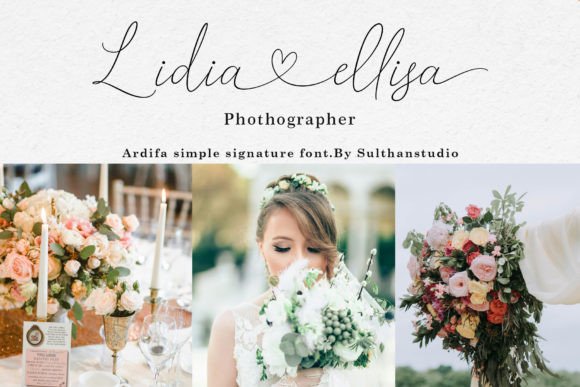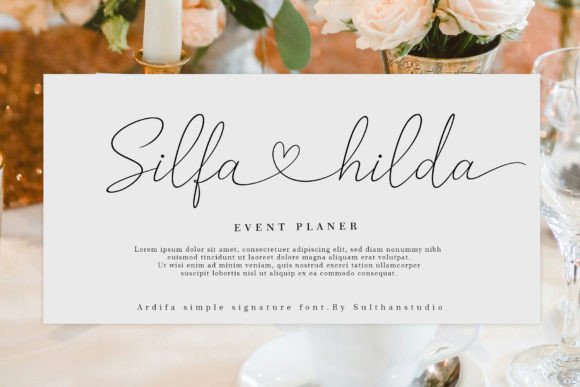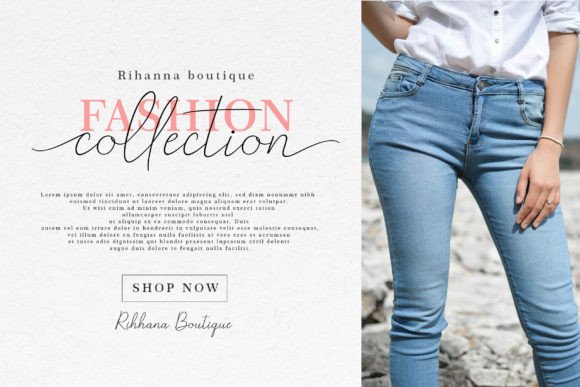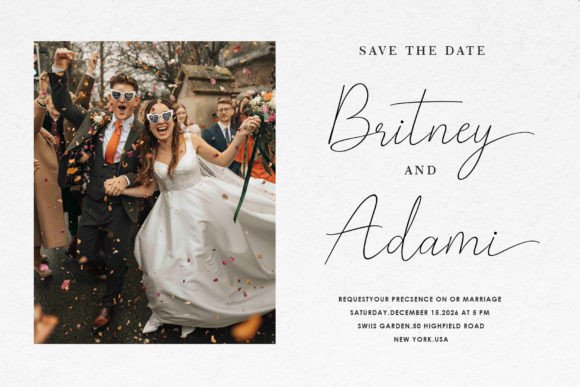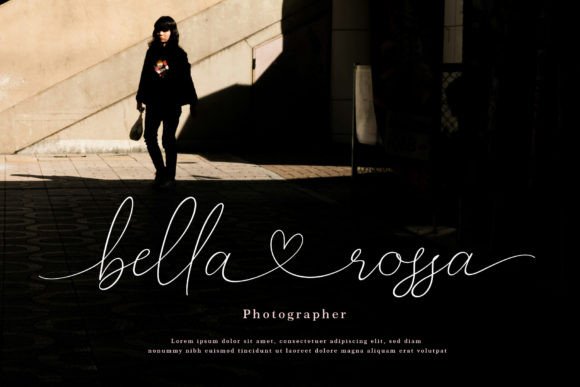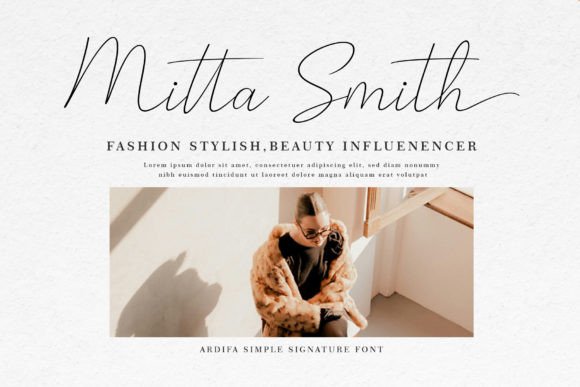
Introducing Ardifa Font: The Perfect Blend of Modernity and Elegance
In the world of typography, fonts play a crucial role in conveying the tone and personality of a brand or design. For designers and crafters, finding the right font can be a daunting task. However, if you’re looking for a simple yet elegant signature font that exudes a fresh, modern, and natural handwriting style, look no further than Ardifa Font.
What is Ardifa Font?
Ardifa is a beautifully crafted font that combines the simplicity of handwriting with the elegance of calligraphy. This stunning font features a unique and modern design that is both easy to read and visually appealing. With its natural handwriting style, Ardifa Font is perfect for adding a personal touch to various design projects.
Key Features of Ardifa Font
- Simple Signature Font: Ardifa Font boasts a simple yet stylish design that makes it perfect for signatures, logos, and branding.
- Fresh and Modern: The font’s modern design ensures that your designs look contemporary and trendy.
- Natural Handwriting Style: Ardifa Font’s handwriting style gives it a personal and human touch, making it ideal for designs that require a personal feel.
- Easy to Read: The font’s clear and legible design makes it easy to read, even at small sizes.
- Calligraphy-Inspired: Ardifa Font’s calligraphy-inspired letters add a touch of elegance and sophistication to your designs.
Uses of Ardifa Font
Ardifa Font is a versatile font that can be used in a variety of design projects, including:
- Branding: Create a lasting impression with Ardifa Font’s unique and stylish design.
- Logos: Design stunning logos that reflect your brand’s personality with Ardifa Font.
- Signatures: Add a personal touch to your signatures with Ardifa Font’s elegant design.
- Quotes: Create inspiring and visually appealing quotes with Ardifa Font.
- Social Media: Elevate your social media designs with Ardifa Font’s modern and fresh design.
Why Choose Ardifa Font?
With so many fonts available, why choose Ardifa Font? Here are a few reasons:
- Unique Design: Ardifa Font’s unique design ensures that your designs stand out from the crowd.
- High-Quality: Ardifa Font is a high-quality font that is designed to deliver exceptional results.
- Versatile: The font can be used in a variety of design projects, making it a great addition to your font library.
In conclusion, Ardifa Font is a stunning signature font that offers a perfect blend of modernity and elegance. With its fresh, modern, and natural handwriting style, Ardifa Font is perfect for designers and crafters looking to add a personal touch to their designs. Whether you’re working on branding, logos, signatures, quotes, or social media designs, Ardifa Font is a great choice. So why wait? Download Ardifa Font today and take your designs to the next level!